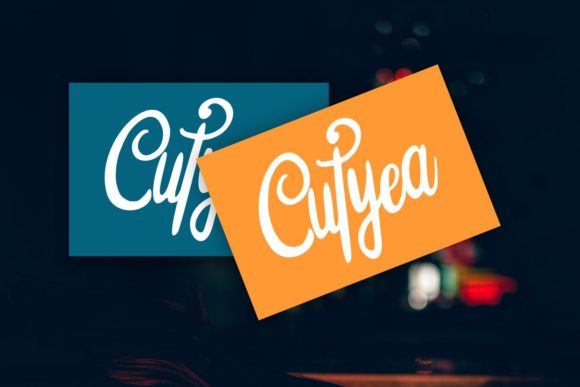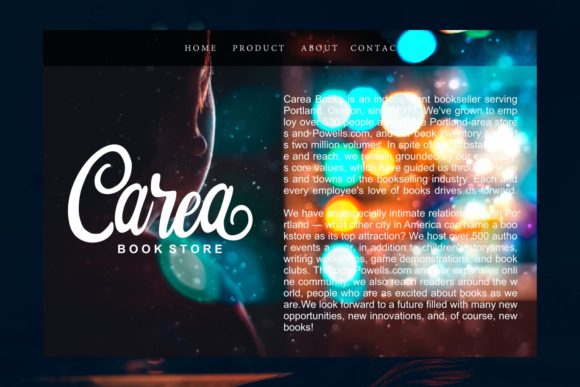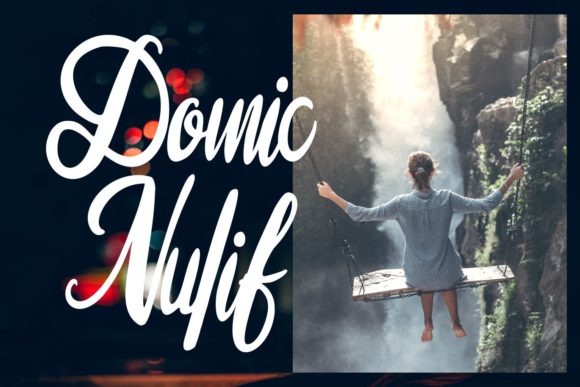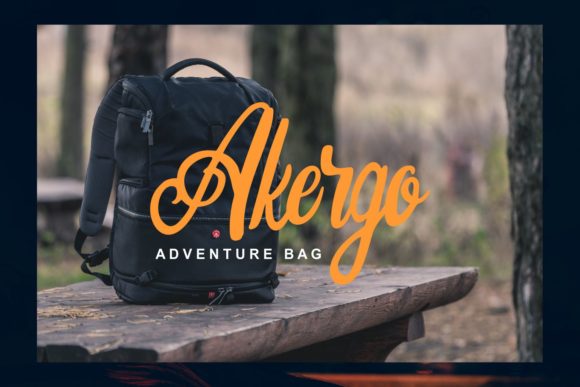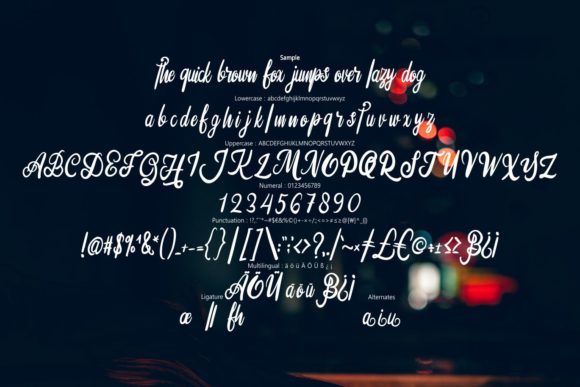
Introduction to Silfhie Font
As a designer, have you ever been working on a project and suddenly, a spark of creativity hits you? Maybe it’s the perfect color palette or the ideal typography combination that elevates your design to the next level. For me, that moment came when I discovered the Silfhie Font – a stunning script font that effortlessly exudes elegance and charm.
The Silfhie Font is a game-changer for any creative project, offering a high-quality design resource that’s free to download and use. Its smooth lines, gorgeous glyphs, and stunning alternates make it a must-have for designers looking to add a touch of sophistication to their work. Whether you’re working on branding, headings, or even wedding designs, the Silfhie Font is sure to take your project to new heights.
With its transparent background and versatile style, the Silfhie Font is a valuable addition to any designer’s toolkit. Whether you’re a seasoned pro or just starting out, this font is sure to become a go-to design resource for all your creative needs.
Key Features of Silfhie Font
- High-quality design for creative projects, suitable for various applications including logos, titles, and body text.
- Comes with a transparent background, allowing for easy integration with different backgrounds and designs.
- Features a unique and stylish design, making it an ideal choice for those seeking a distinctive look for their creative project.
- Easy to customize and edit, making it a versatile design resource for designers and artists working on various creative projects.
Honest Review: Silfhie Font
As a designer, I’m always on the lookout for high-quality design resources that can elevate my creative projects. The Silfhie Font has caught my attention, and I’m excited to share my honest review.
What works well: ✨ The Silfhie Font is incredibly versatile and can be used for a wide range of creative projects, from branding to digital art. Its modern and sleek design makes it perfect for creating a professional and polished look. The font also comes in a transparent background version, which is a big plus for designers who need to create visually appealing designs.
- Modern and sleek design
- Transparent background version available
- Limited character set
Overall, the Silfhie Font is a great design resource for personal projects or small-scale commercial use. However, it may not be the best choice for designers who need a more extensive character set or commercial-grade fonts. I would recommend it to designers who are looking for a high-quality, free font that can add a touch of modernity to their creative projects.
Tips for Getting the Most Out of Silfhie Font
Use the Silfhie Font in combination with a transparent background for a high-quality, design resource that stands out. Experiment with different font sizes and colors to add depth and visual interest to your creative project.
The Silfhie Font is ideal for designing logos, graphics, and text overlays for social media, marketing materials, and presentations. Its high-quality design makes it a valuable resource for any creative project.